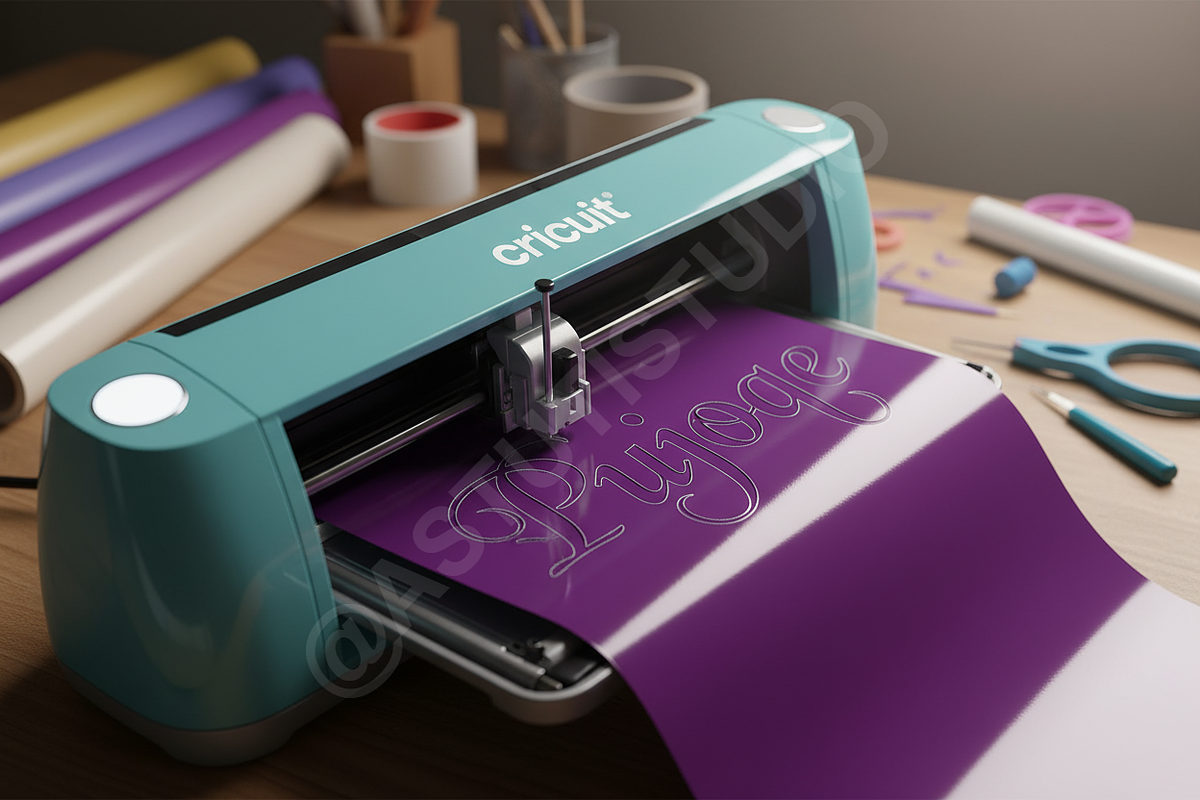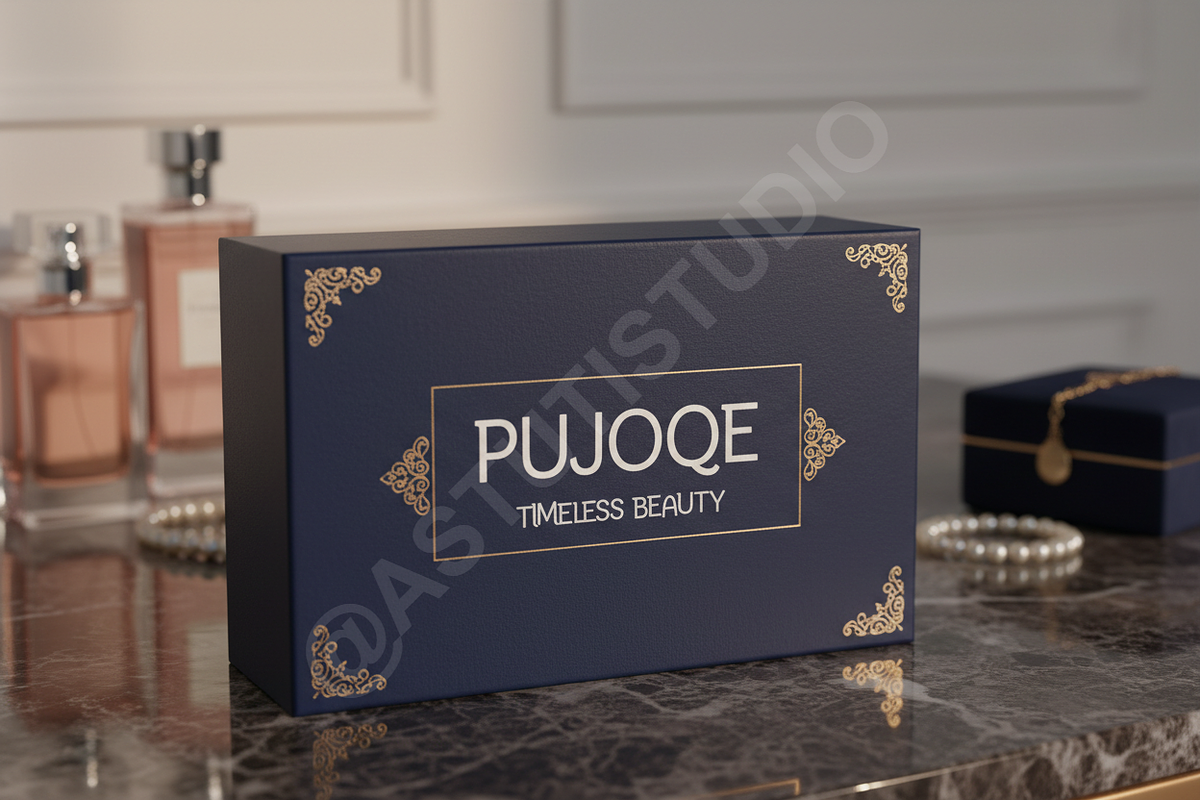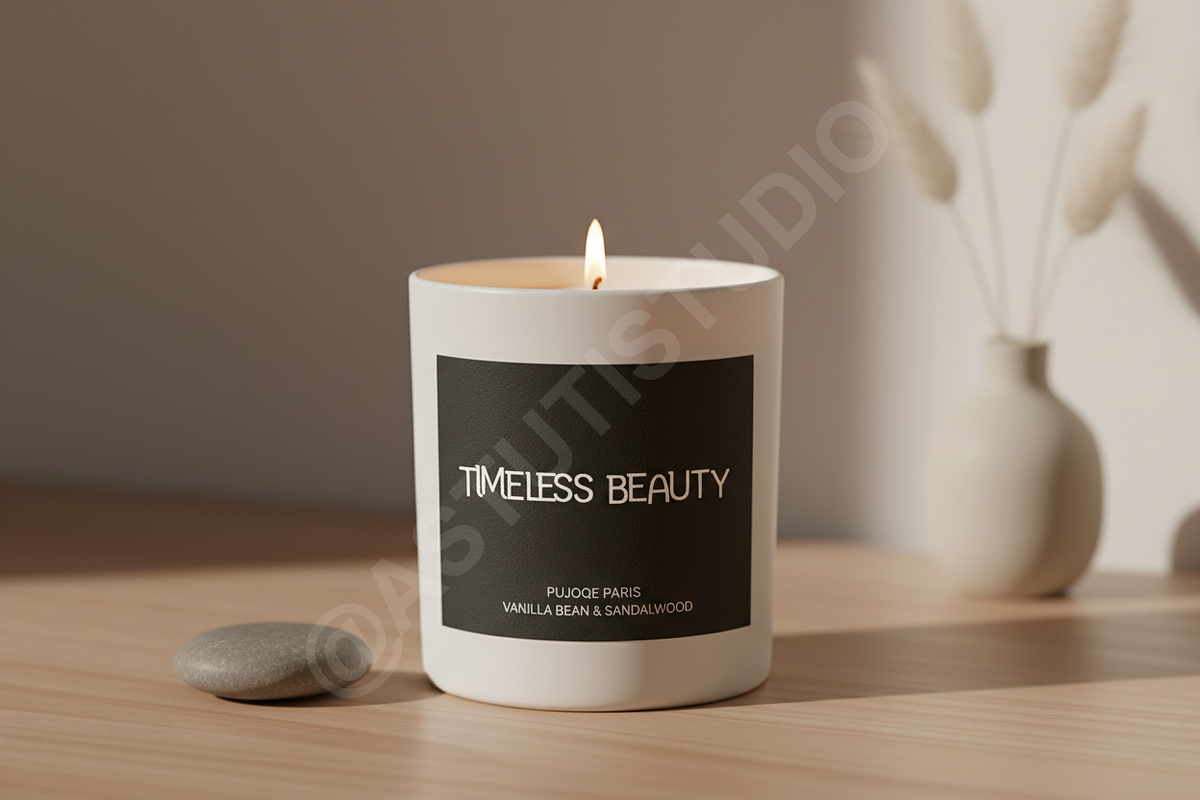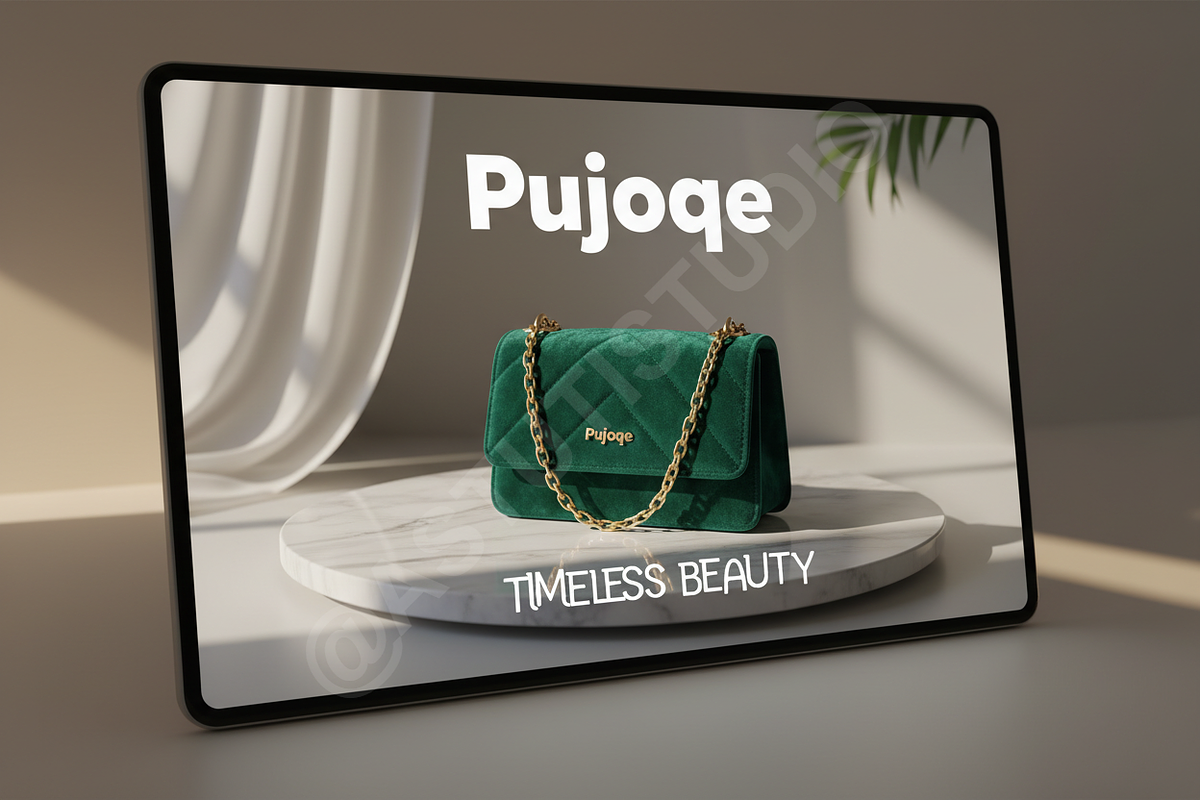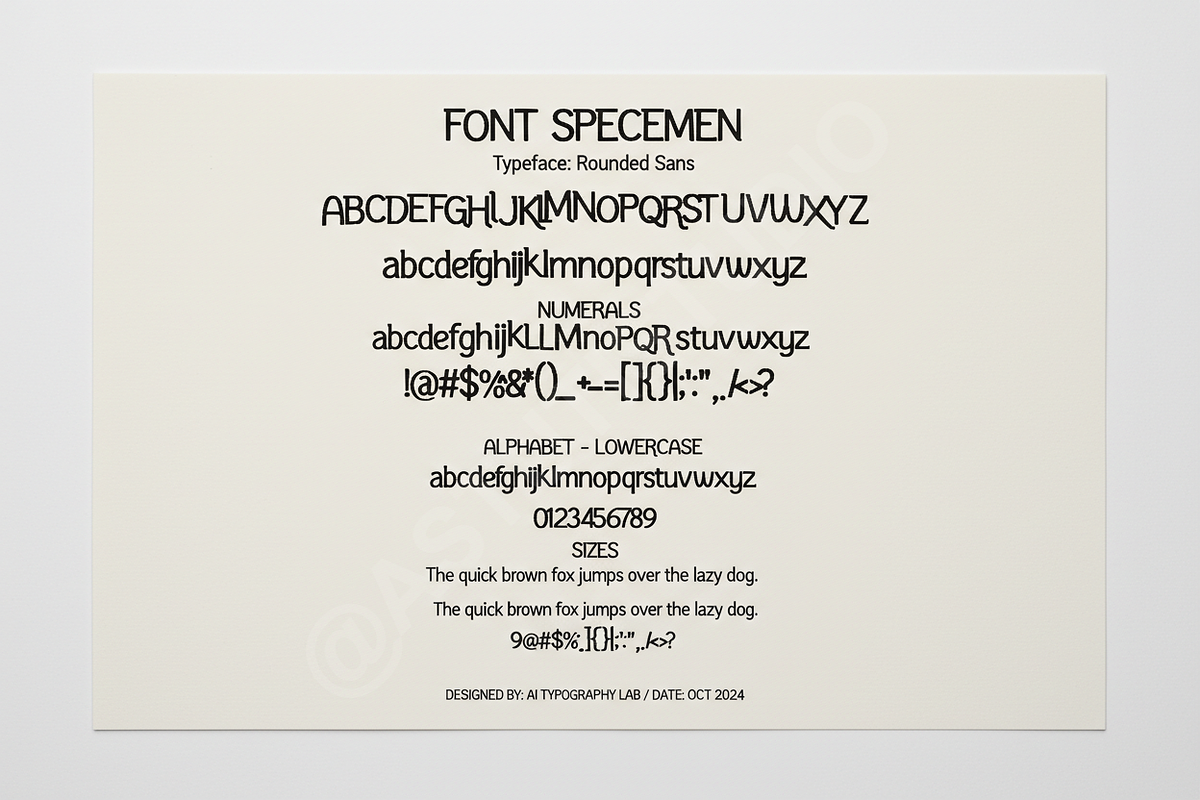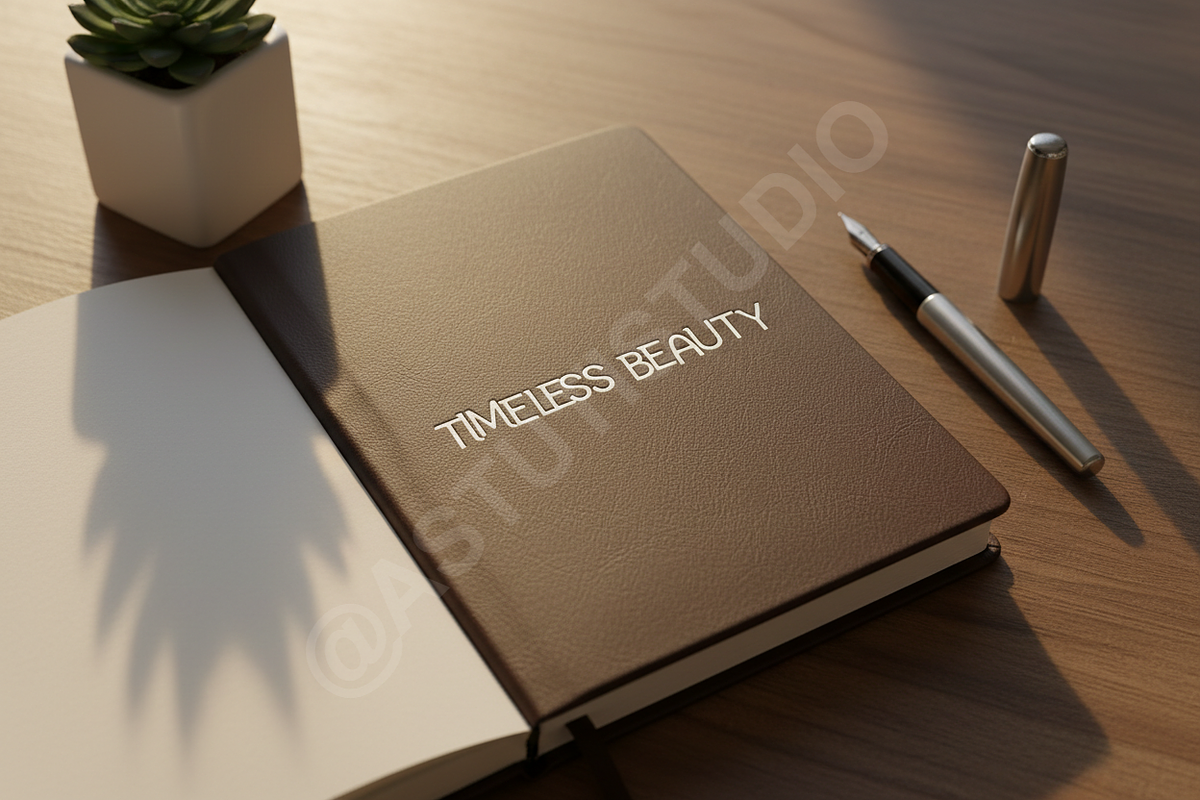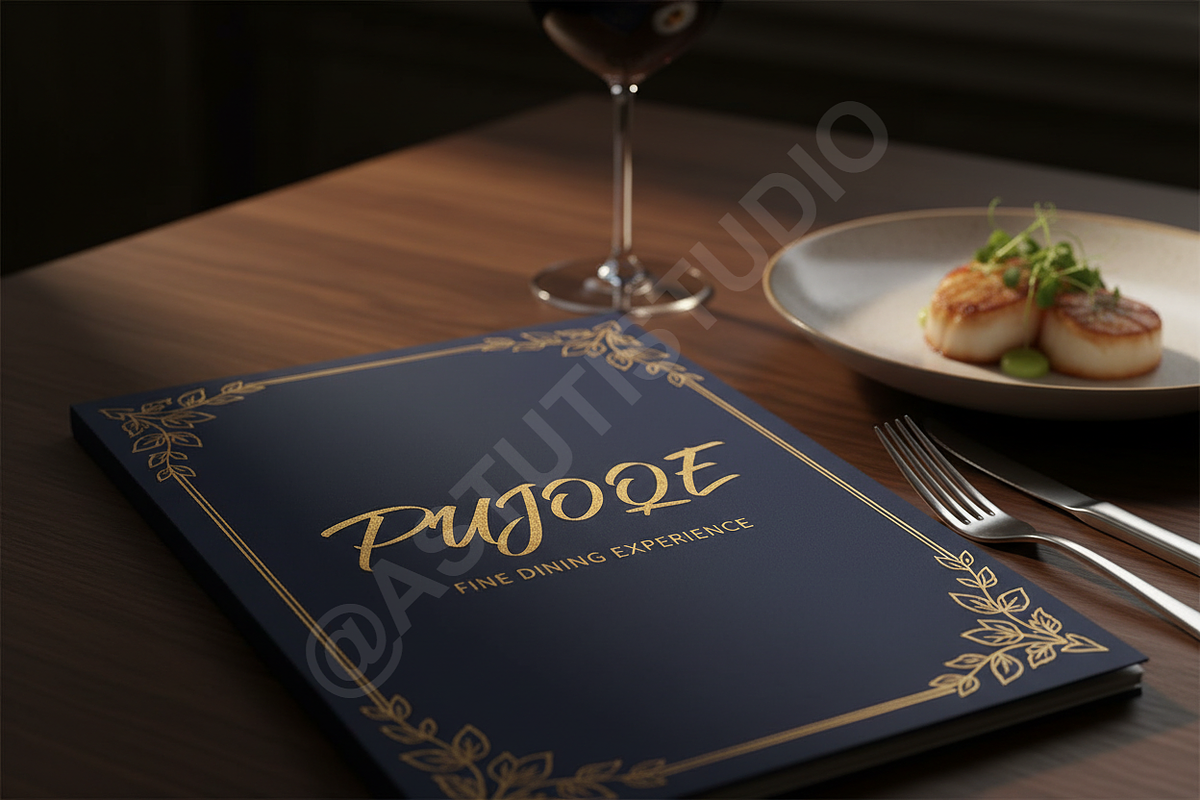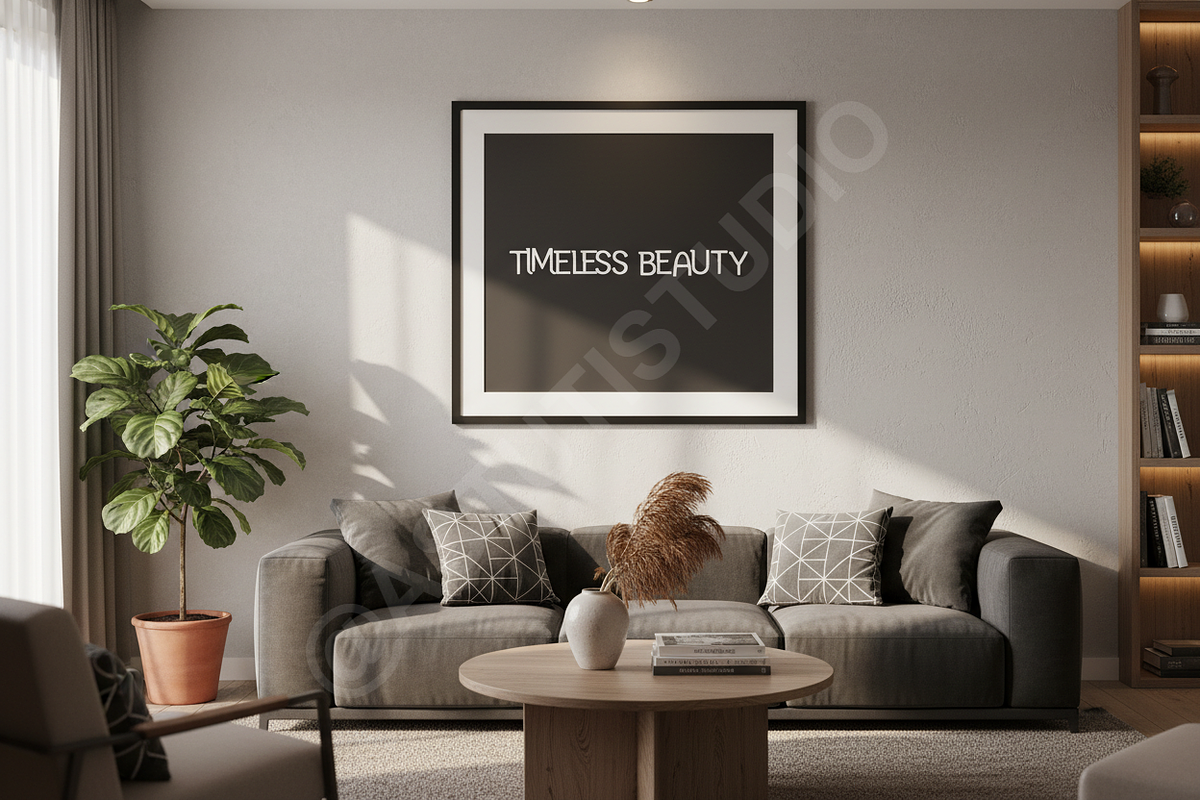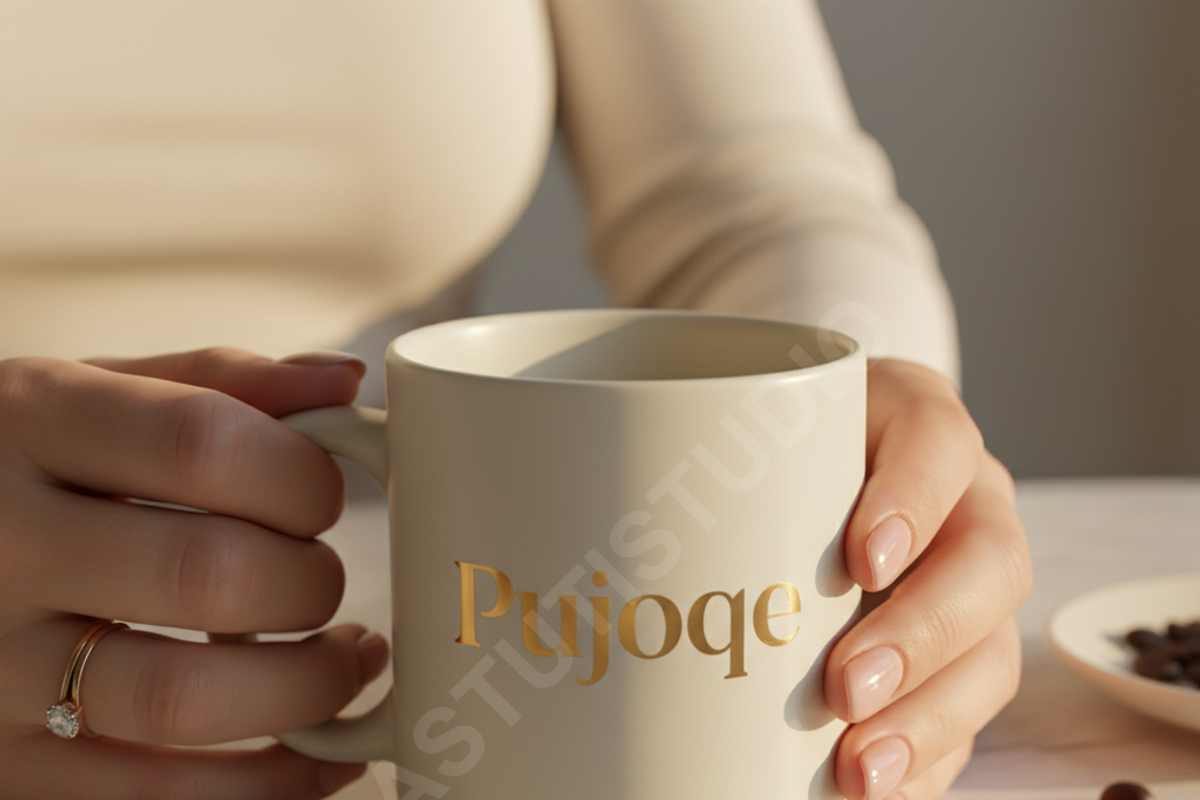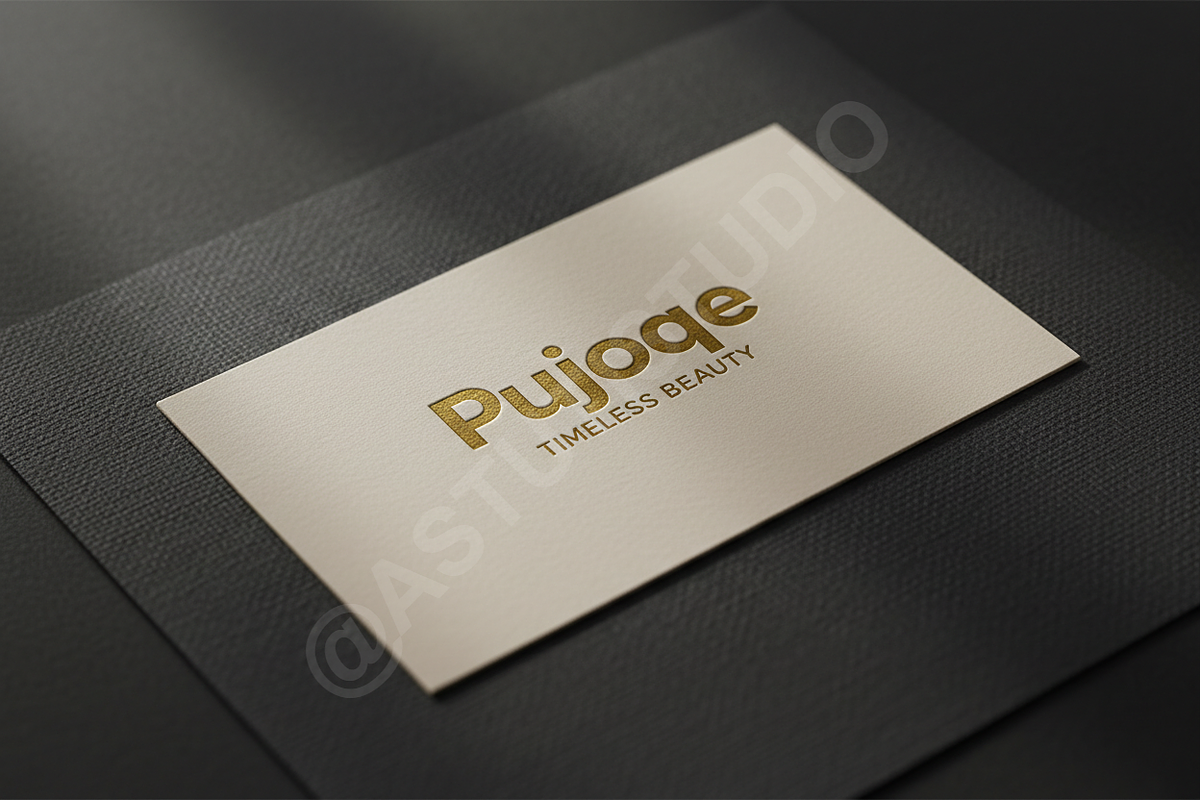
Pujoqe - A Refined Modern Serif Typ
Introduction
Pujoqe is an exquisite display serif typeface designed for the sophisticated modern brand. With a harmonious balance between sharp terminals and graceful curves, Pujoqe exudes a sense of high-end luxury and timelessness. It is meticulously crafted to serve as a cornerstone for premium studio projects, offering a professional edge to any creative composition.
Applications
This typeface is the ideal choice for luxury branding, high-end editorial design, and elevated social media content. Whether you are designing a sleek logo, a high-fashion magazine layout, or minimalist social assets, Pujoqe provides the elegance required to make a lasting impression.
- Full uppercase and lowercase character set
- Elegant ligatures and decorative alternates
- Comprehensive multilingual support
- Precise kerning and balanced letter spacing
- High contrast strokes for a premium look